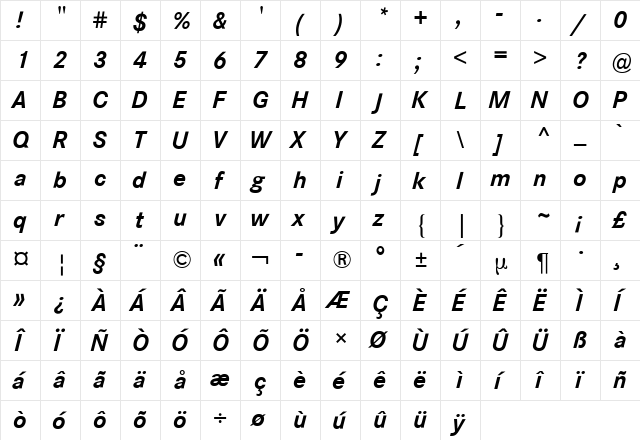
Corporate S BQ Bold Italic Font Preview
Corporate S BQ Bold Italic
Corporate S BQ Bold Italic Font Details
Design Context for Corporate S BQ Typeface
Corporate S BQ offers clean, dependable letterforms without strong stylistic allegiance, making it a practical choice for designers who need flexibility. The slanted form adds forward momentum and visual energy. Its bold stroke weight gives it real presence on the page.